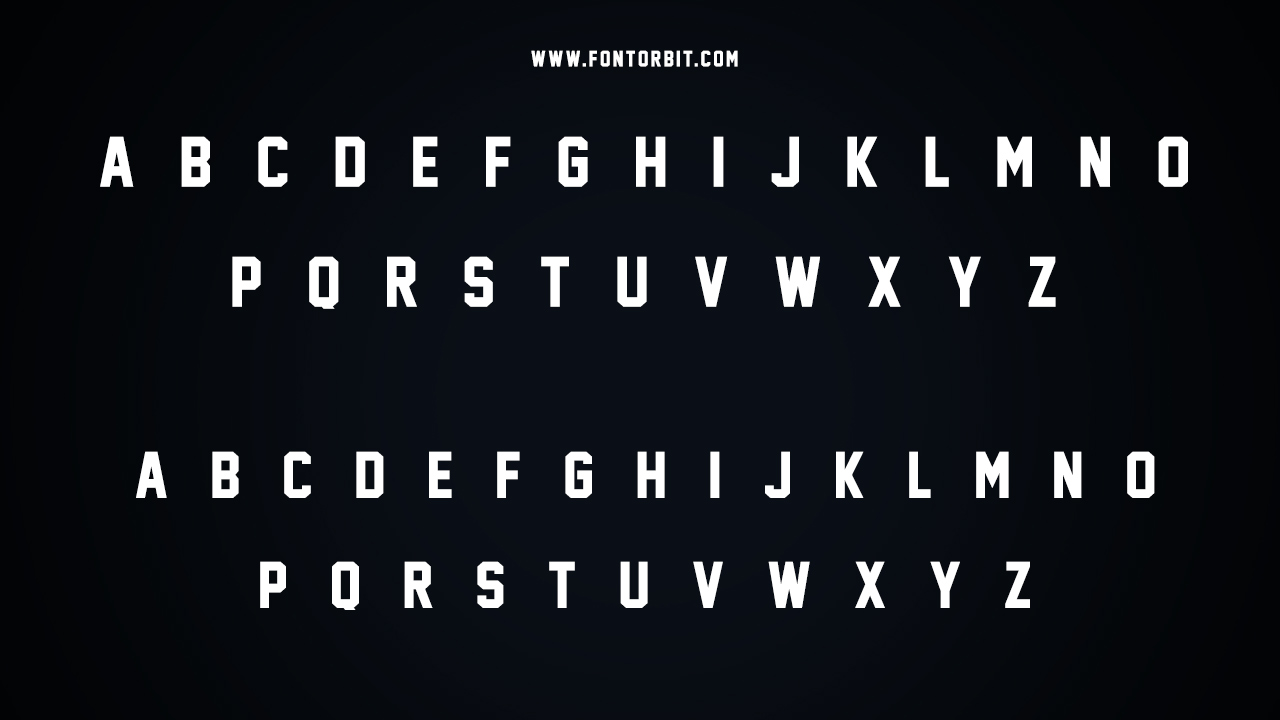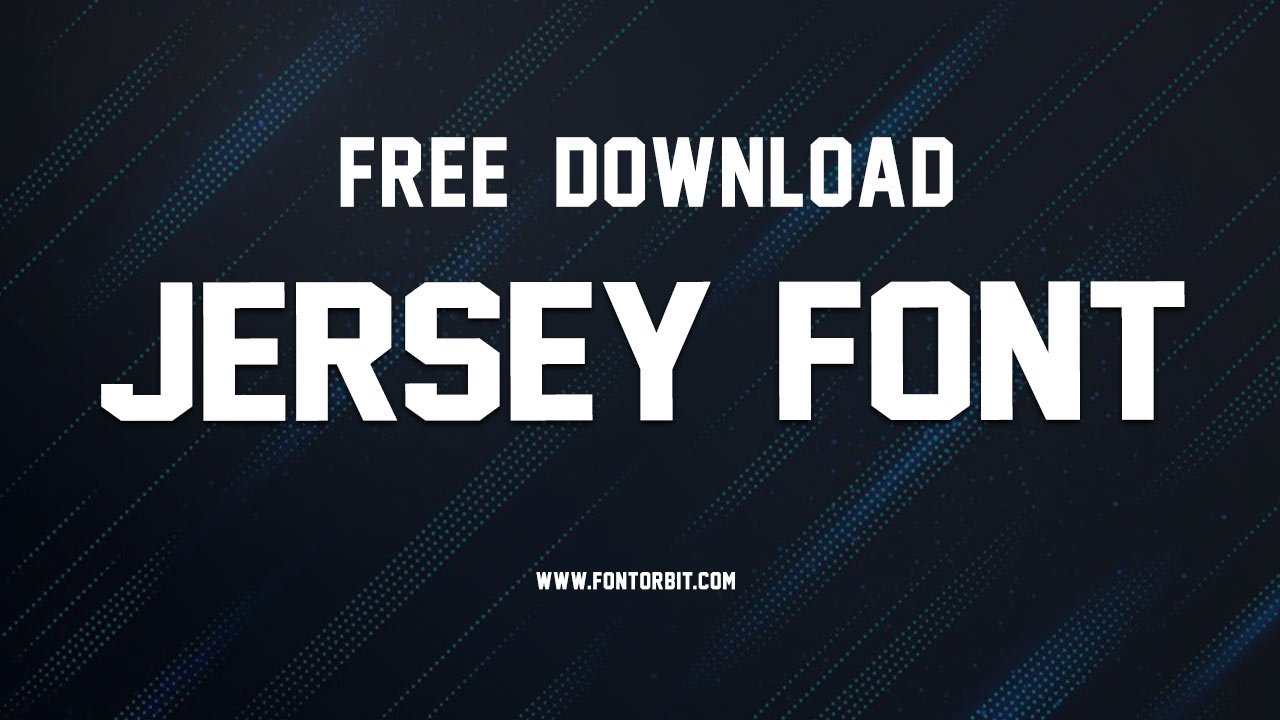
The Jersey font (Jersey M54) is a striking typeface known for its bold and athletic appearance. Designed by justme54s and published on June 25, 2010, Jersey belongs to the sans-serif font family. Its clean lines and robust style make it ideal for various design needs, especially those requiring a sporty or impactful look.
Notable Uses Of Jersey Font
Jersey font is frequently used in sports team logos, athletic apparel, and energetic promotional materials. Its strong presence makes it a favourite choice for any design aiming to convey power and motion.
Jersey is best suited for headlines, logos, and branding materials that need a bold statement. It’s particularly effective in contexts where a sense of movement and energy is desired, such as in sports-related content or dynamic advertisements.
Jersey font stands out for its bold and athletic style, making it a versatile choice for a range of high-impact designs. Whether you’re working on sports branding or energetic promotional materials, Jersey’s robust appearance can enhance your project.
5.What are the best uses for Jersey font?
Ideal for sports logos, headlines, and promotional materials.